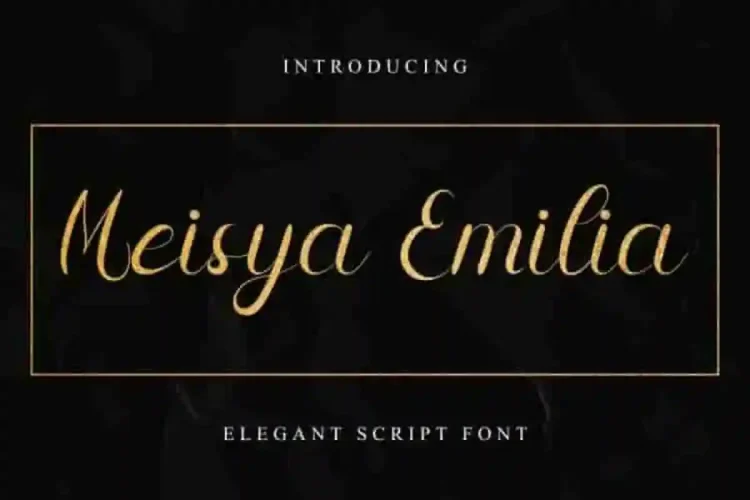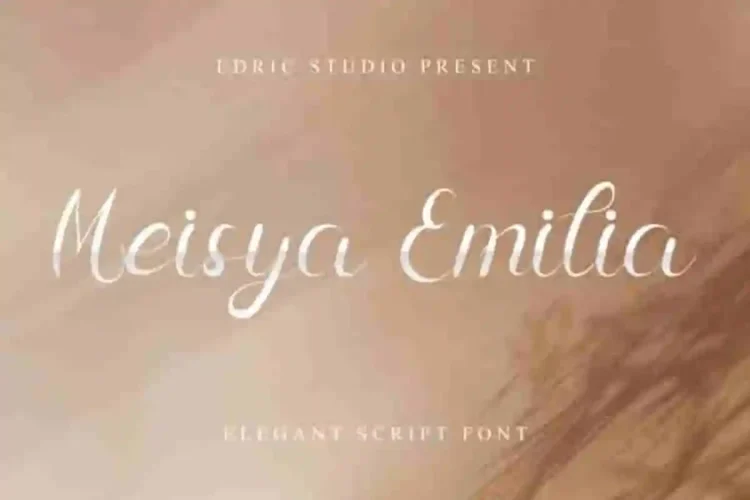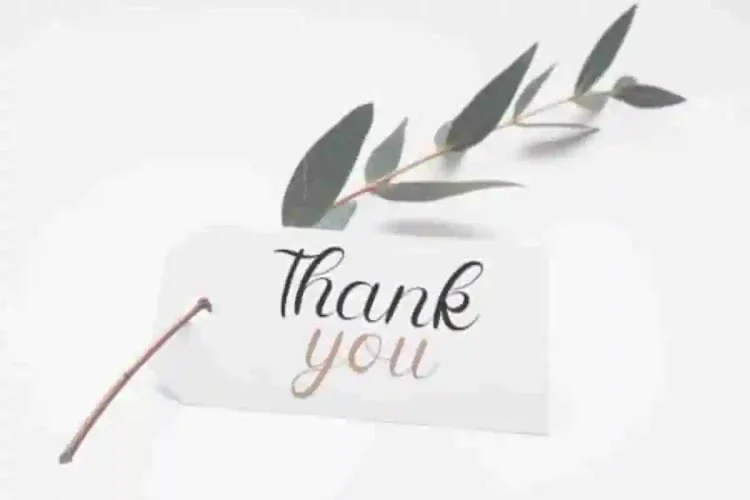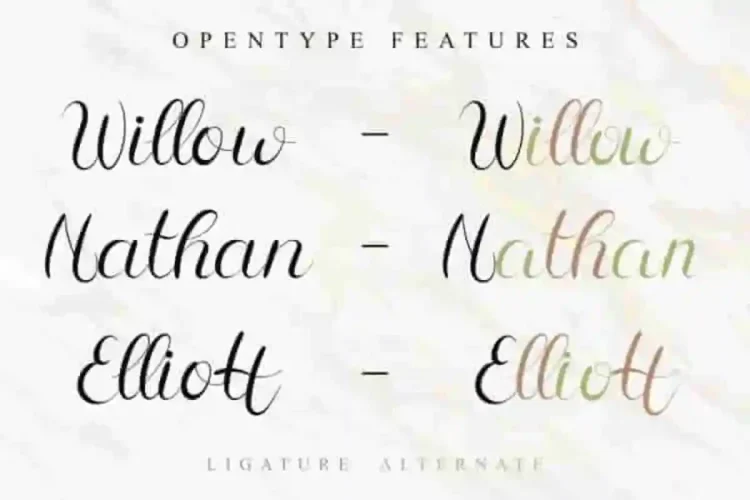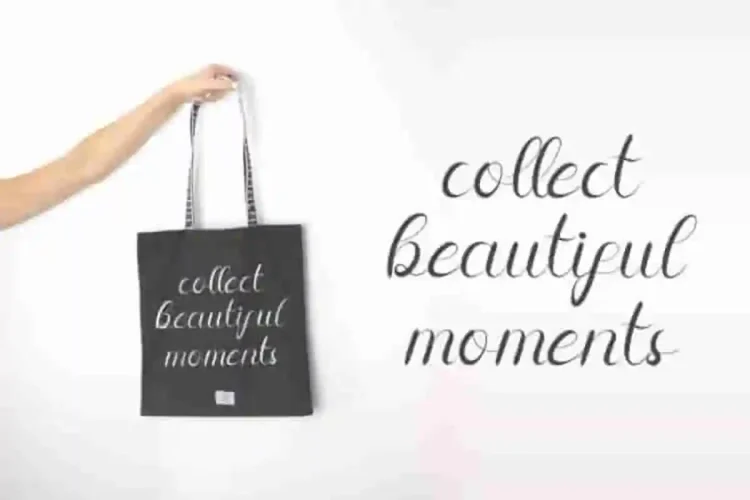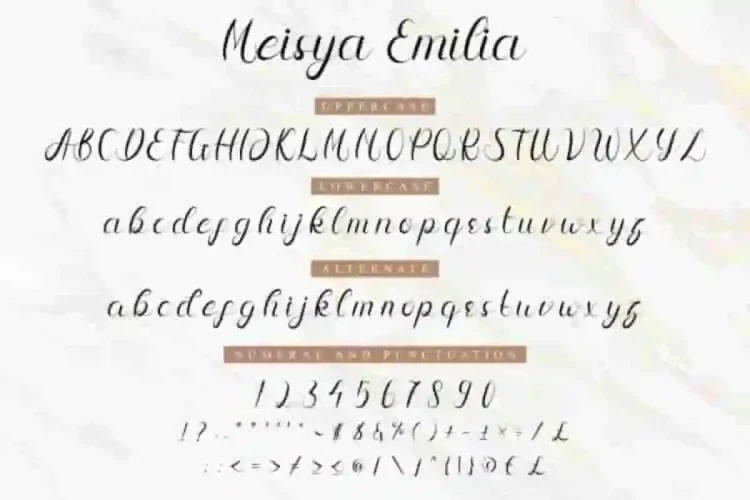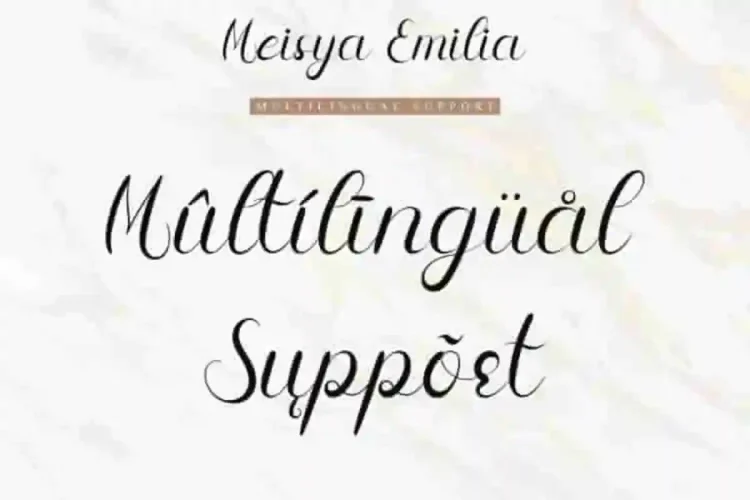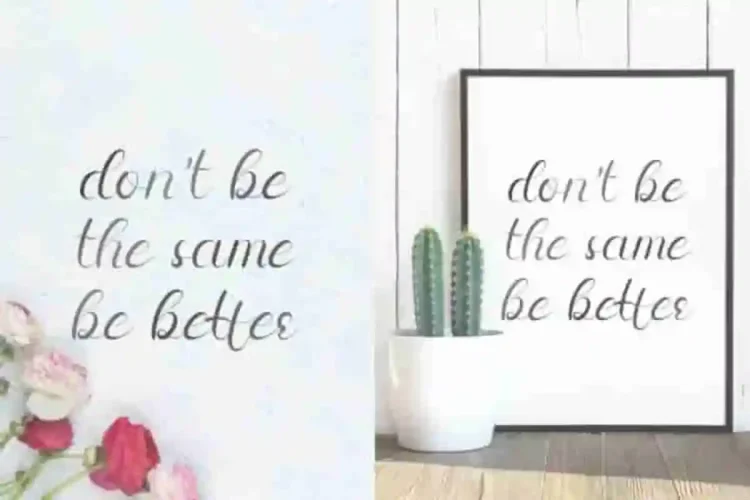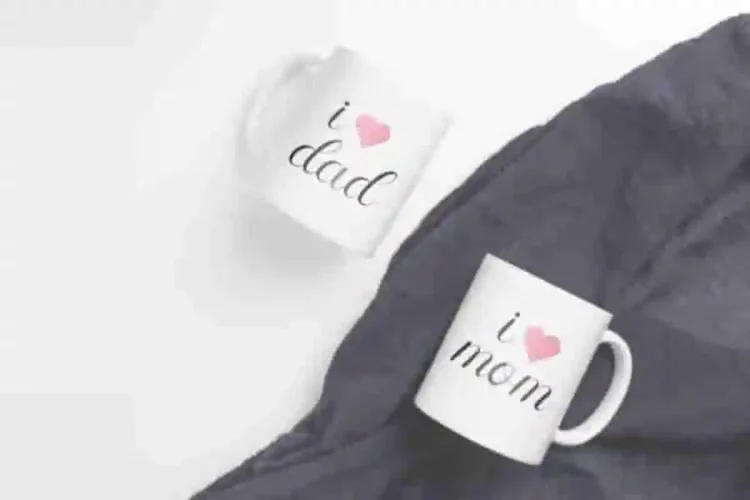
Meisya Emilia Calligraphy Font
Introducing our newest font from our lovely artist : Meisya Emilia Calligraphy Font
This is a Calligraphy font, handcrafted from our Studio here in, Indonesia. The artists/designers of this beautiful tyeface is Widiyanti and Suci.
Meisya Emilia Calligraphy Font is an exclusive calligraphy script typeface with brush style. This font has a stunning characters set, perfectly managed with well spaced and kerning.
Meisya Emilia Calligraphy Font will be great for any projects including : branding, logo, stationery, business card, signage, flyer, brochure etc. Almost all industries will be match for this typeface: wedding, events, real estate, architect, law firm, florist, gardening, makeup artist, travel, hotel, musician etc.